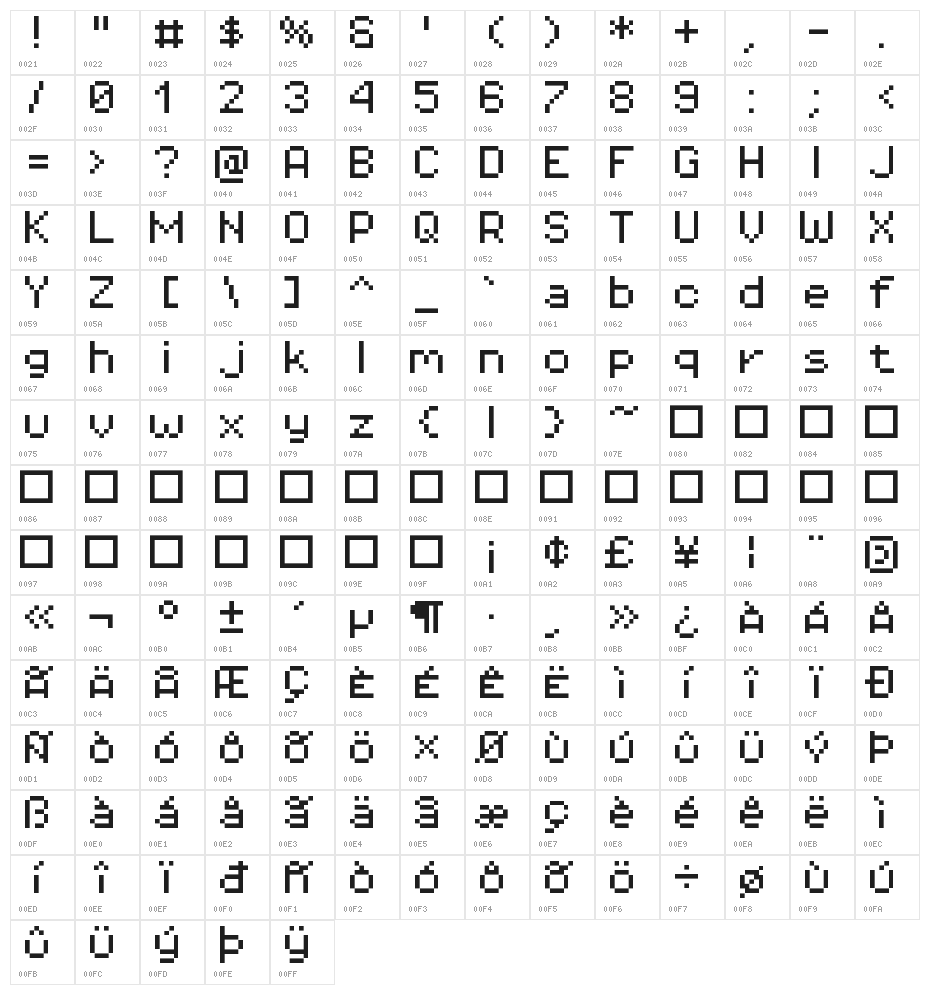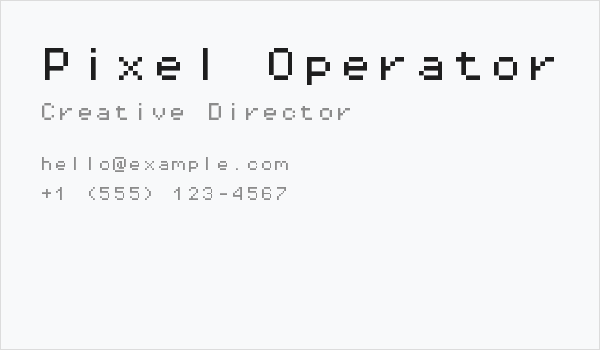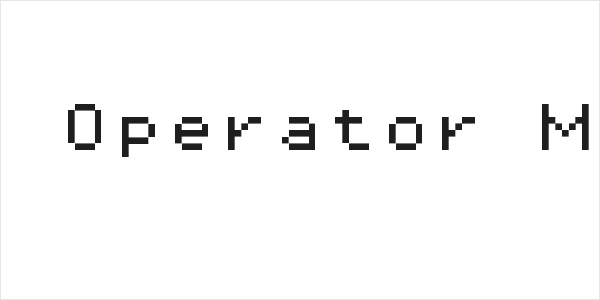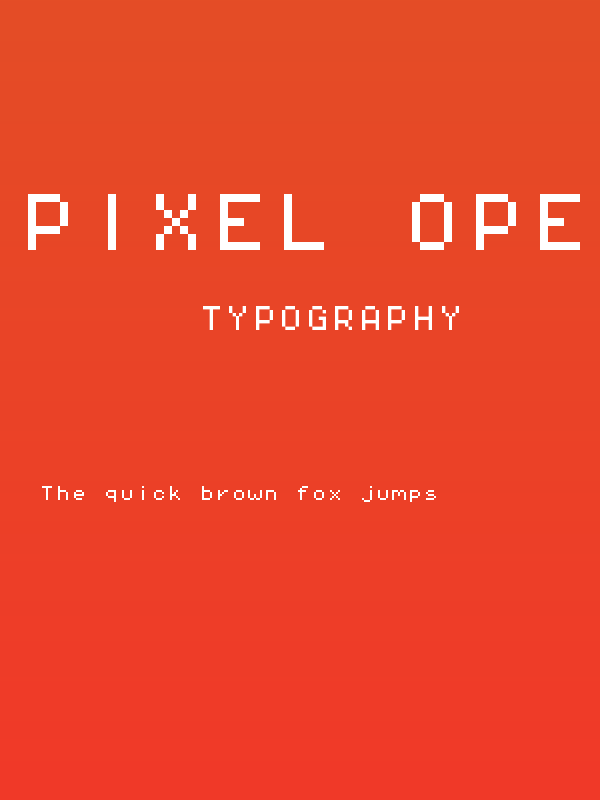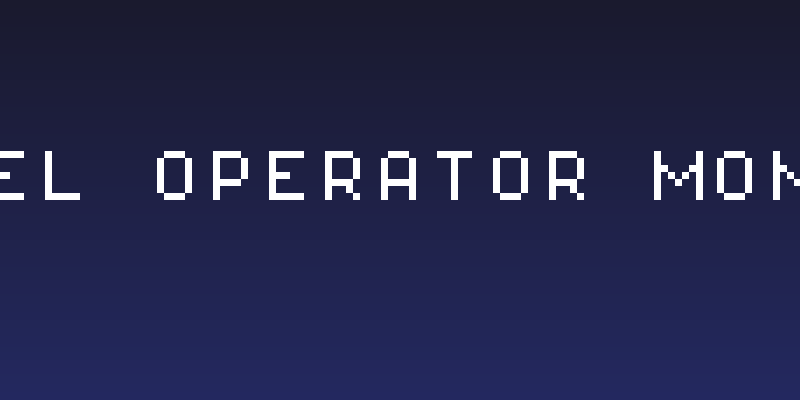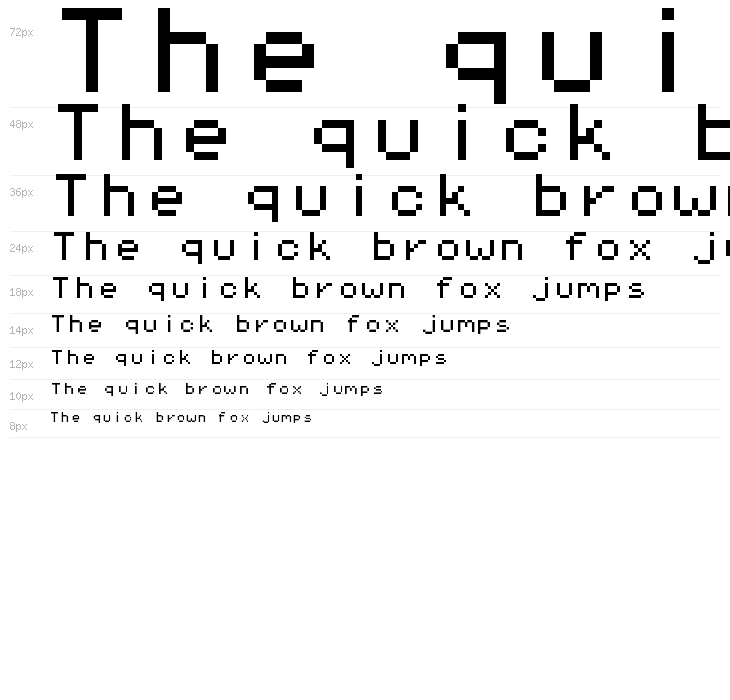
Pixel Operator Mono 8 Font
Pixel Operator Mono 8 Description
This font features a pixelated, monospaced design that evokes a retro, digital aesthetic reminiscent of early computer screens and video games. Each character is constructed with a uniform grid-like structure, providing a consistent and mechanical appearance. The uppercase and lowercase letters maintain a clear distinction, while the numerals and special characters are easily recognizable, enhancing readability. The font's simplicity and geometric precision make it ideal for projects that require a nostalgic or technical feel.
| Use Case | Logos, Coding, Digital displays |
| Proposed Projects | Ideal for retro video games, digital art, coding environments, and tech-themed designs. |